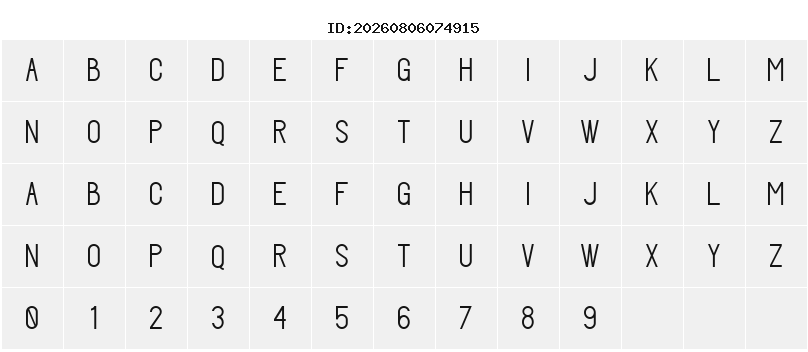
Oswaldesque Preview
• Font Name: Oswaldesque
• Full Font Name: Oswaldesque Regular
• Designer: Boris Garic
About Oswaldesque.ttf
Oswaldesque.ttf is a modern, elegant sans-serif font designed for ultimate readability and visual harmony. Perfect for branding, headlines, web design, and print materials.